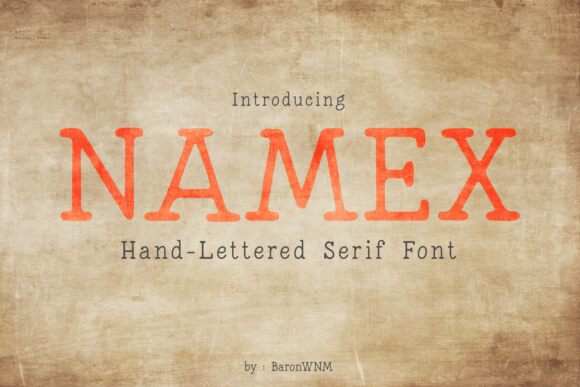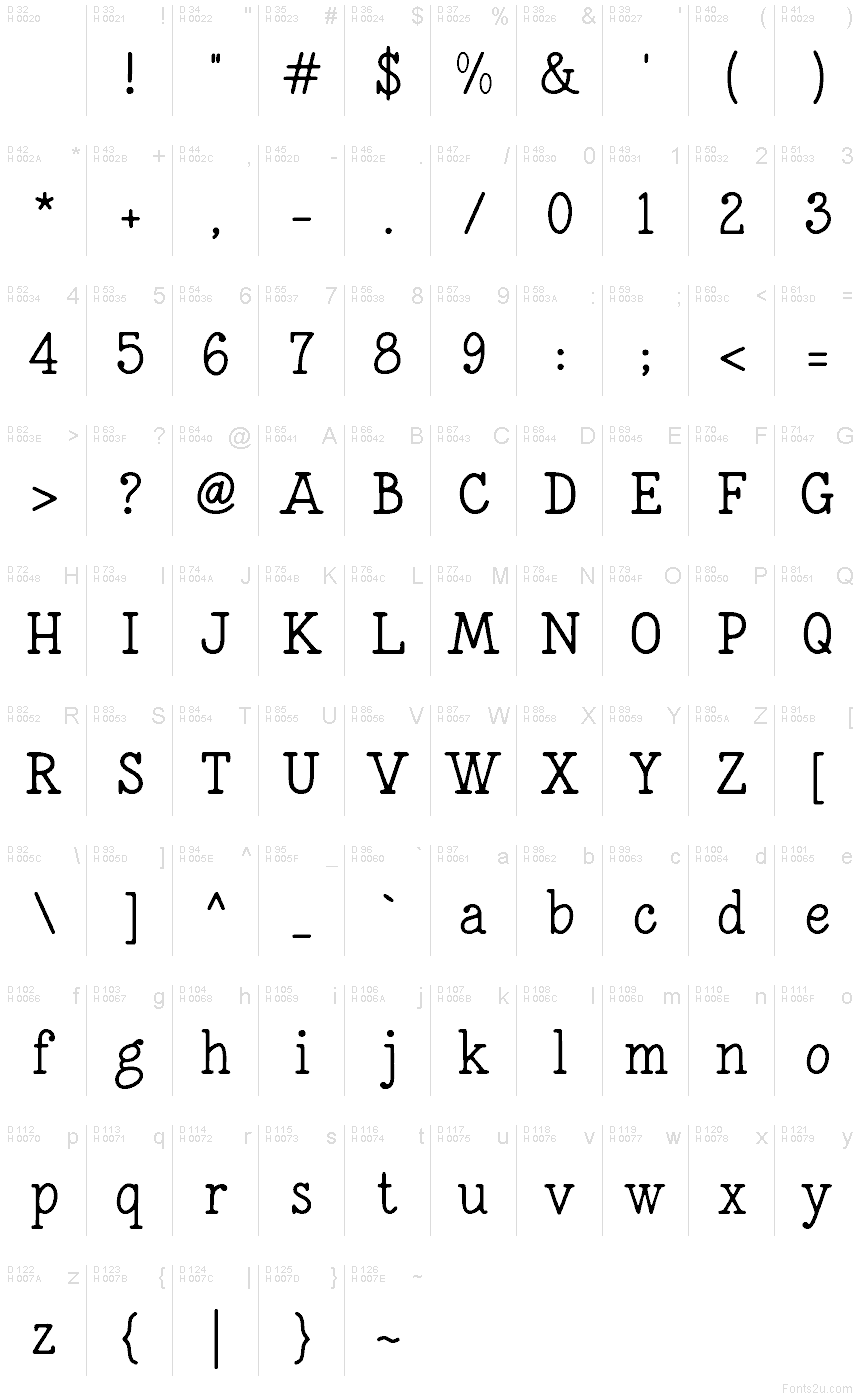
Namex Regular
Namex font by BaronWNM is a free vintage-style serif typeface with a lively, hand-inked feel. Rounded droplet terminals and gentle, springy curves give it a soft bite—confident without turning stiff. The strokes feel sculpted rather than drawn, so words sit with a warm, tactile rhythm that catches the eye and stays readable.
Using Namex, headlines gain character and brand marks feel handcrafted: think boutique logos, book covers, artisanal packaging, editorial headers, café menus, and poster work. This free font shines when set a touch larger, with modest tracking to show off those inky terminals. Pair it with a clean sans like a modern grotesque for body copy to keep layouts crisp and balanced.
Namex